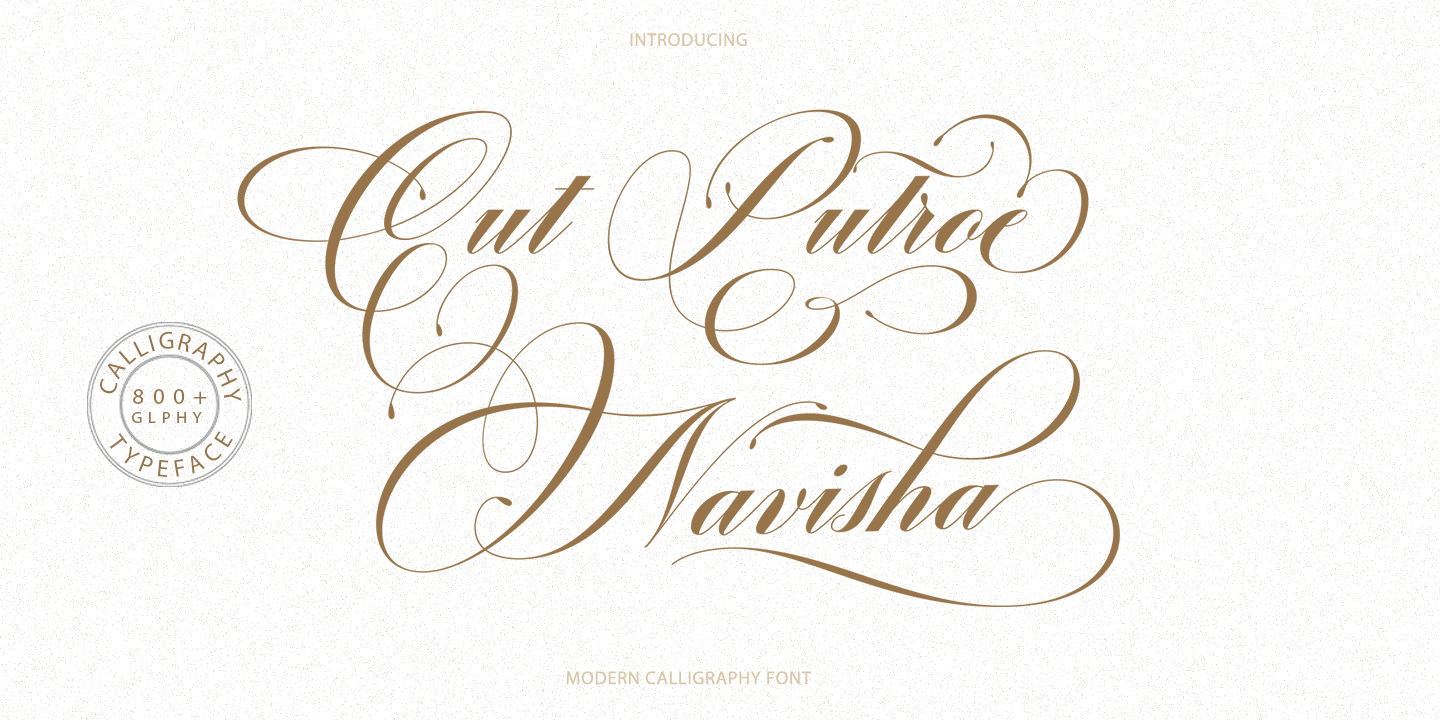
Cut Putroe Navisha Font is perfect for elegant branding, luxury invitations, fashion magazines, romantic novels, wedding stationery, and high-end packaging. Its fluid, calligraphic strokes and graceful curves exude sophistication and timeless beauty.
What makes Cut Putroe Navisha Font Free Download so exciting is its seamless blend of classic copperplate calligraphy with modern design sensibilities. Designed by Teuku Fahruddin and published by Typehill Studio, it offers a refined and expressive typographic style that elevates any project.
The Cut Putroe Navisha font family includes a single style, offering a cohesive and consistent appearance across various applications. With over 800 glyphs, it supports multiple languages and includes OpenType features such as stylistic alternates, ligatures, and contextual characters, allowing for creative flexibility and customization.
Whether you're designing a luxury brand identity, crafting an elegant wedding invitation, or creating sophisticated editorial layouts, Cut Putroe Navisha Font Free Download provides the perfect blend of elegance and readability. Remember, while it's free for testing, commercial use requires proper licensing.